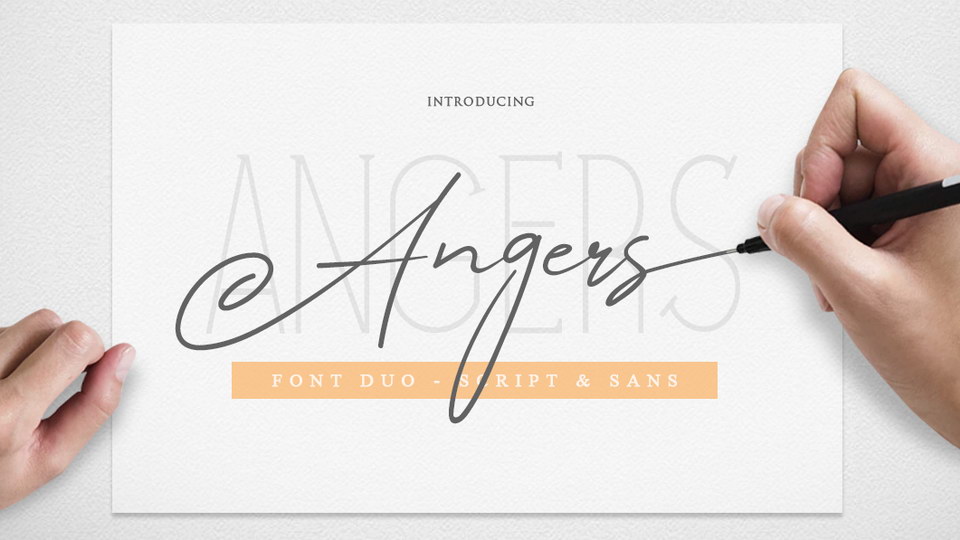
Download Angers Script is a stylish handwriting font with a natural flow. Angers font is perfect for namecard, poster, logo, magazine, cover, banner, tshirt and headers, or even large-scale artwork.